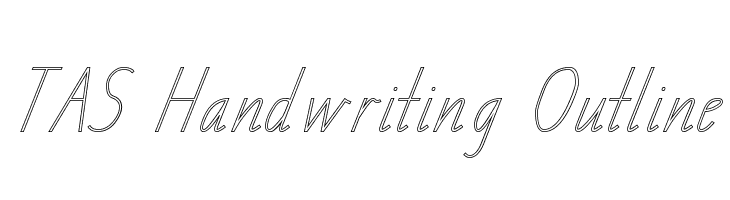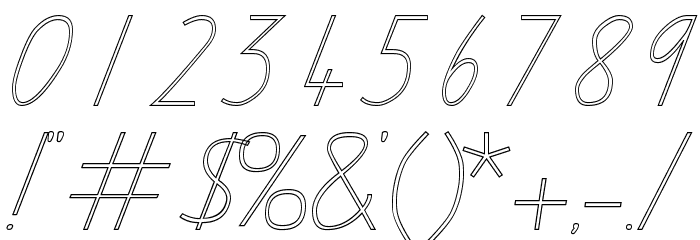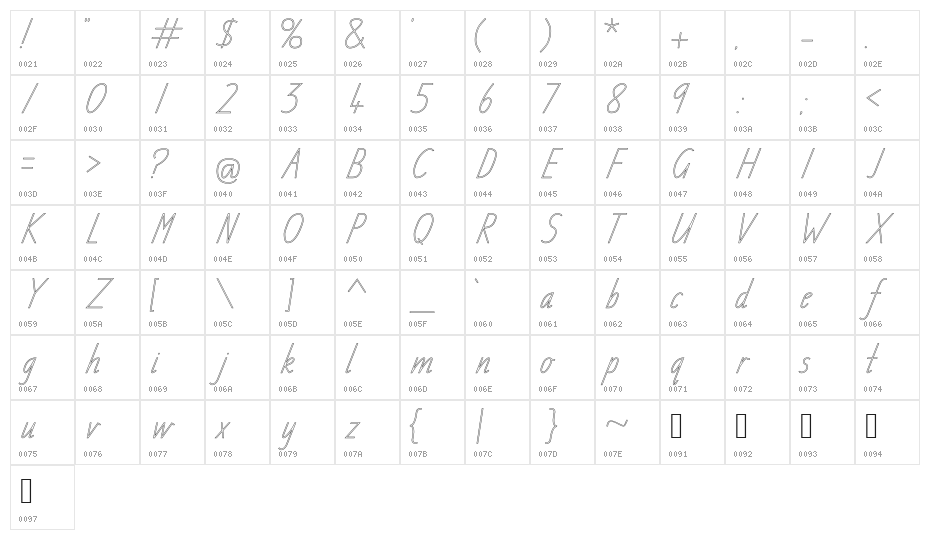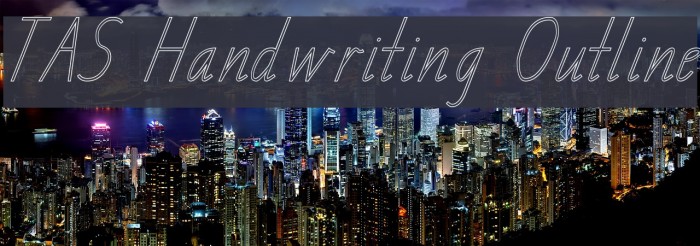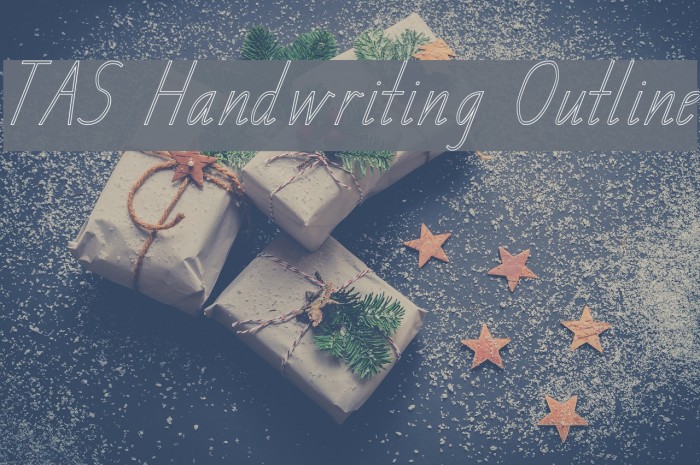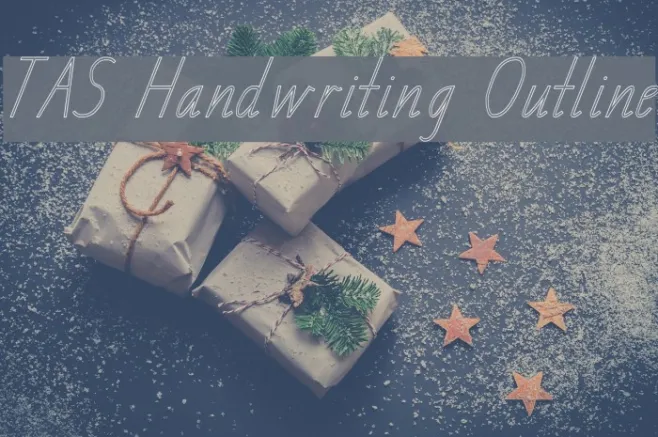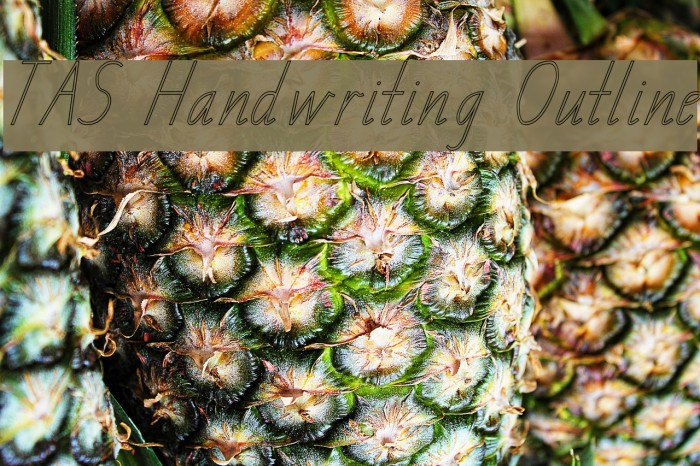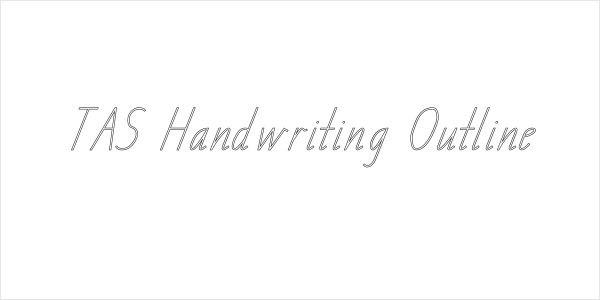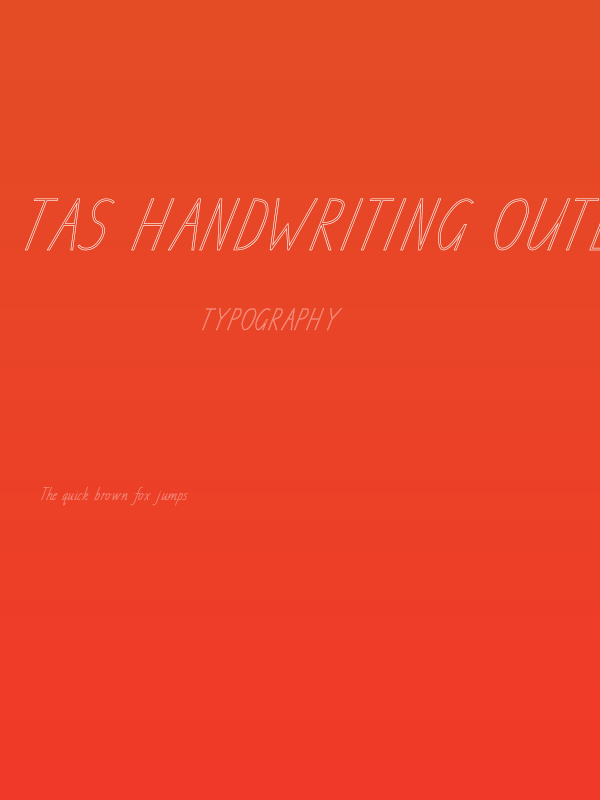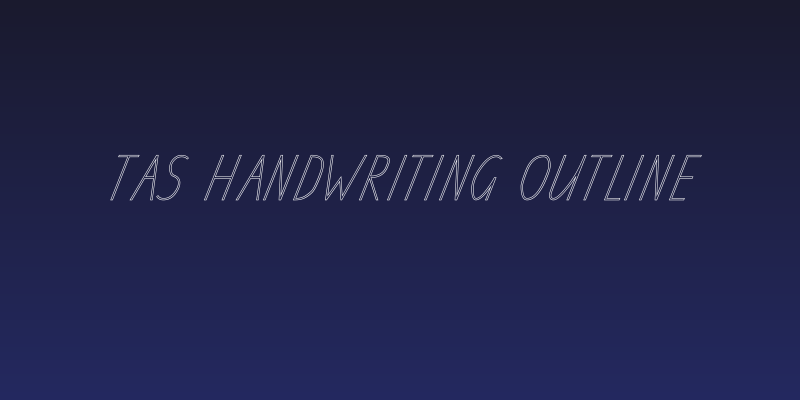
TAS Handwriting Outline Font
TAS Handwriting Outline Description
This font features a distinctive handwritten style with an outline effect, giving it a unique and artistic appearance. The characters are slightly slanted, adding a dynamic and casual feel. The uppercase and lowercase letters maintain a consistent flow, with smooth curves and a natural rhythm that mimics authentic handwriting. The numerals and special characters are designed to complement the letterforms, maintaining the same outline style. This font is ideal for projects that require a personal touch, such as invitations, greeting cards, or creative branding.
| Overall Style | Casual, Artistic |
| Proposed Projects | Ideal for invitations, greeting cards, creative branding, and artistic projects. |